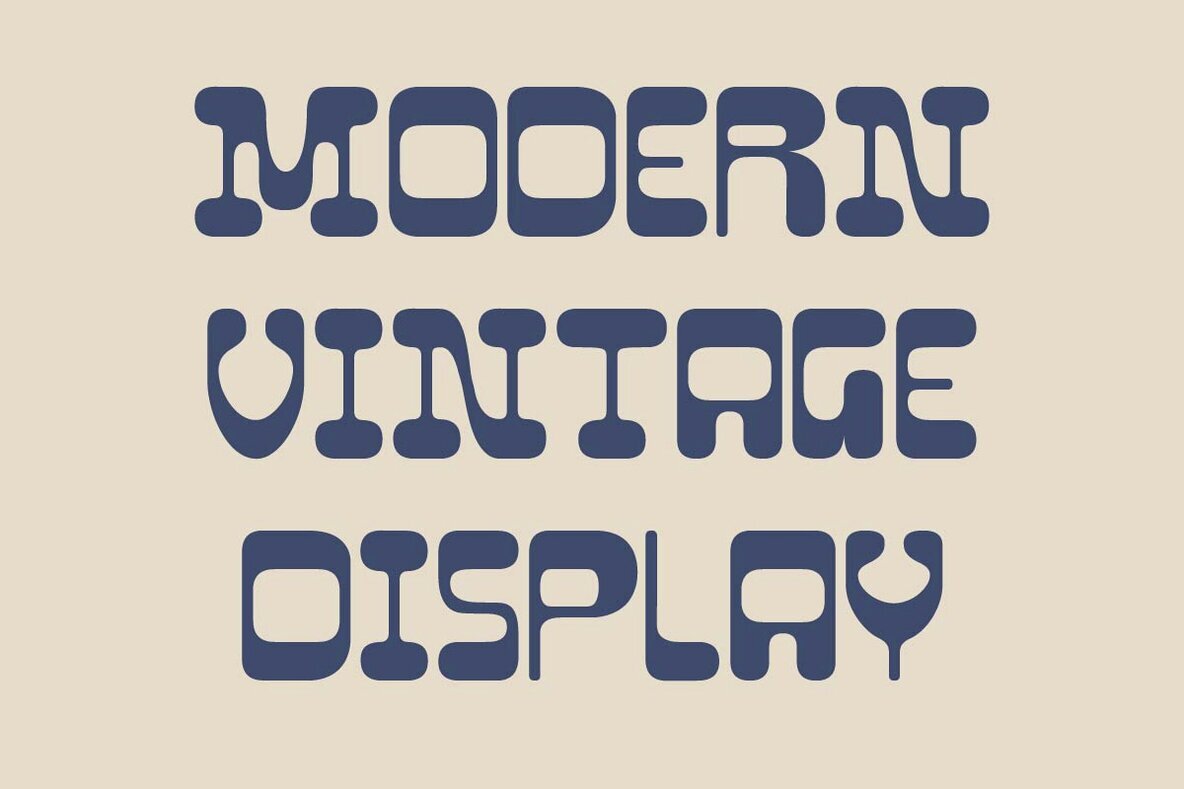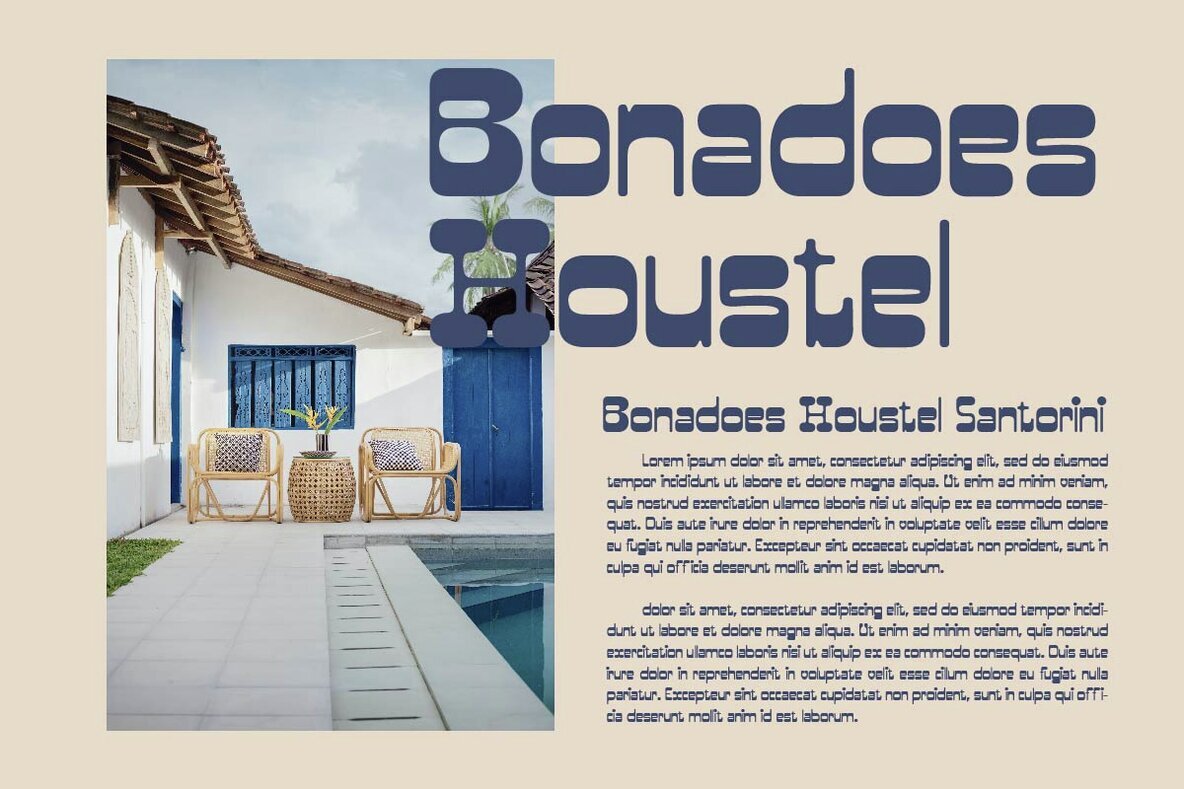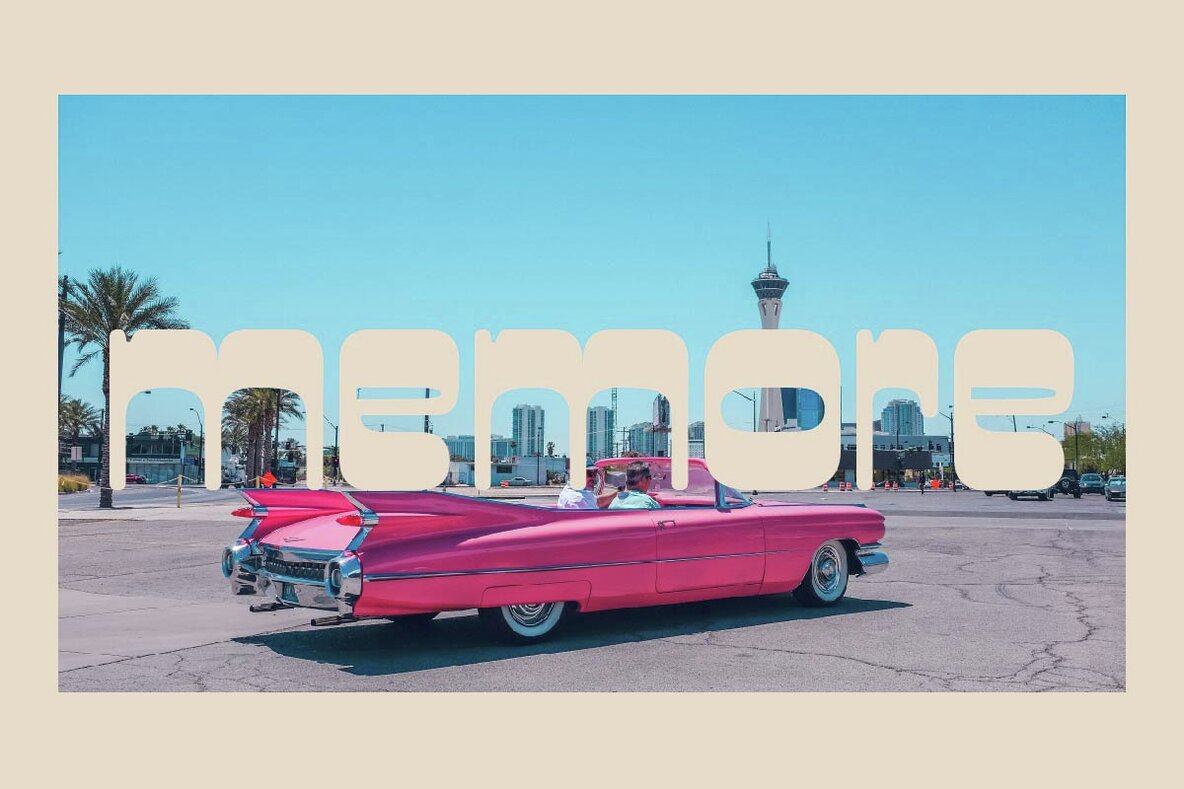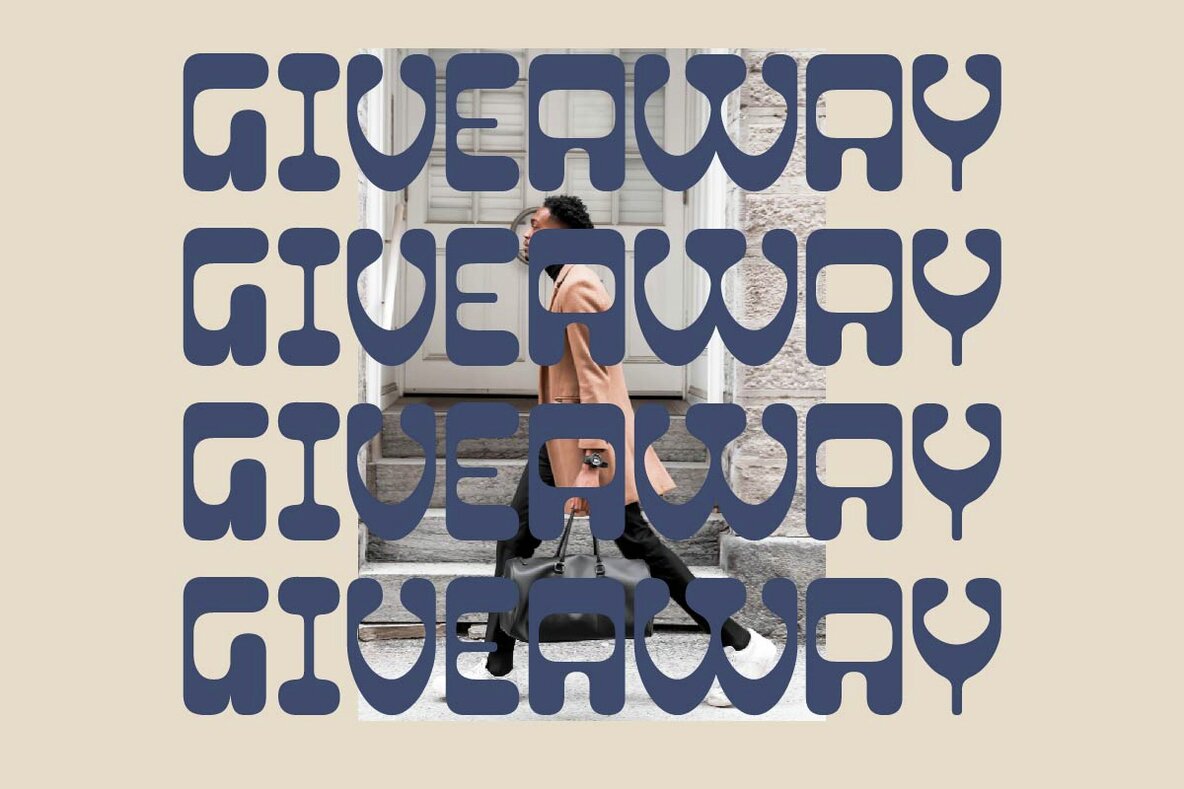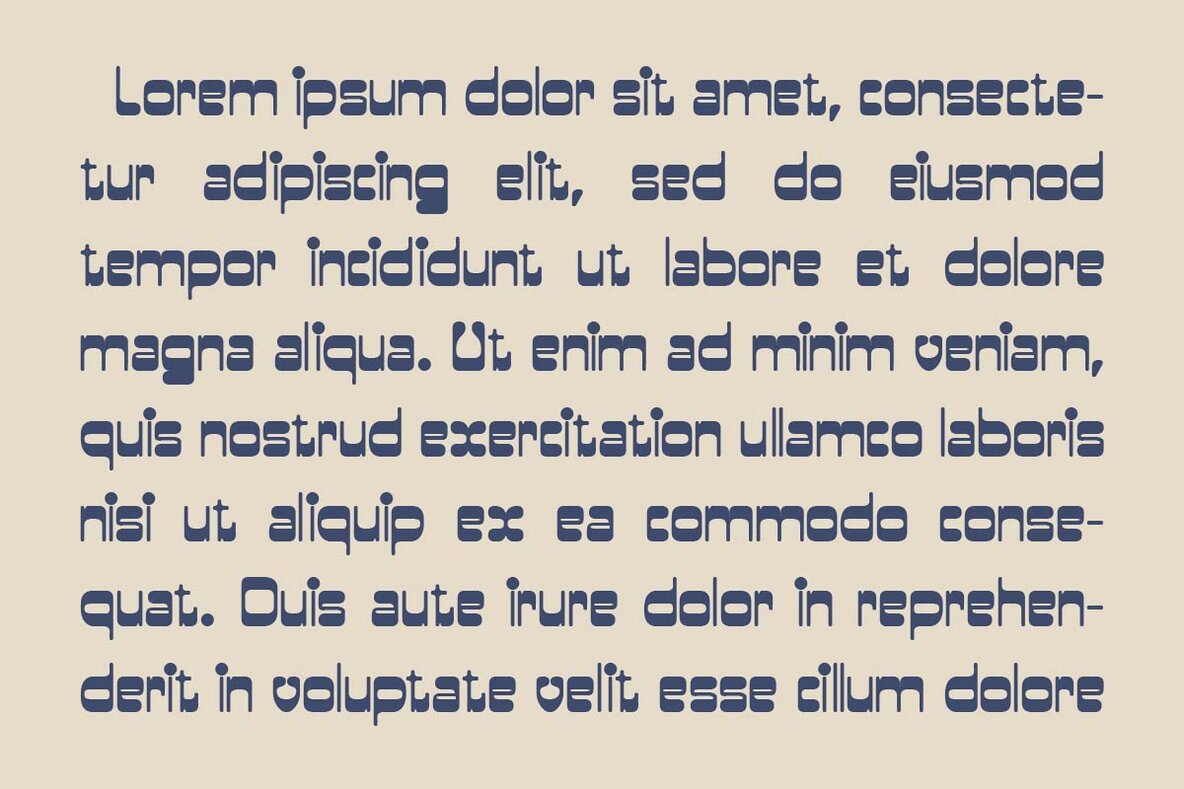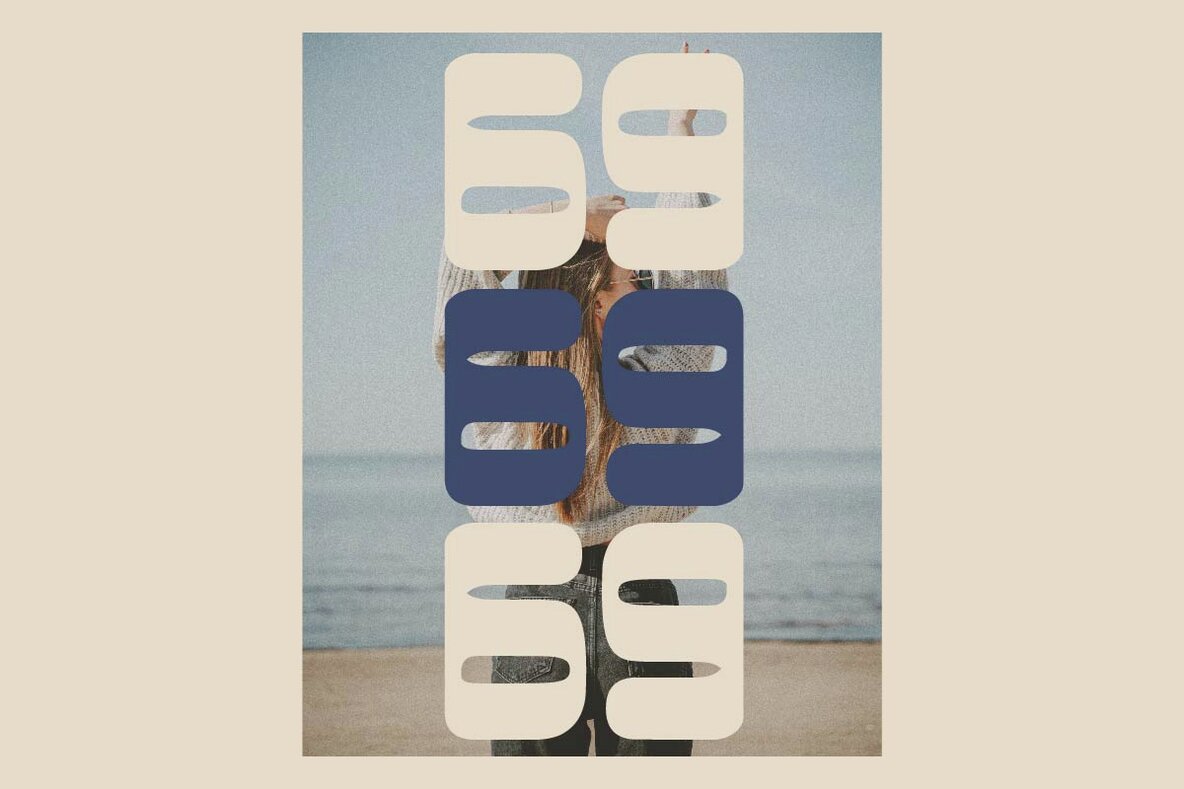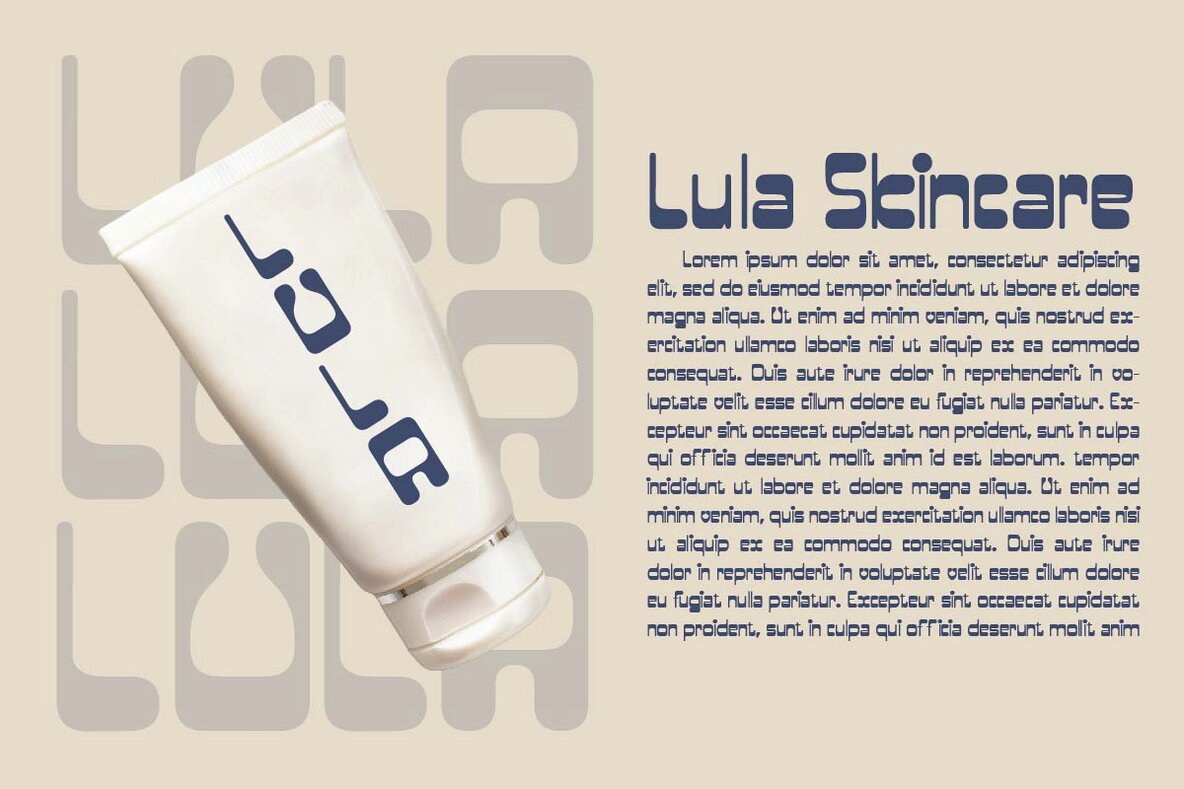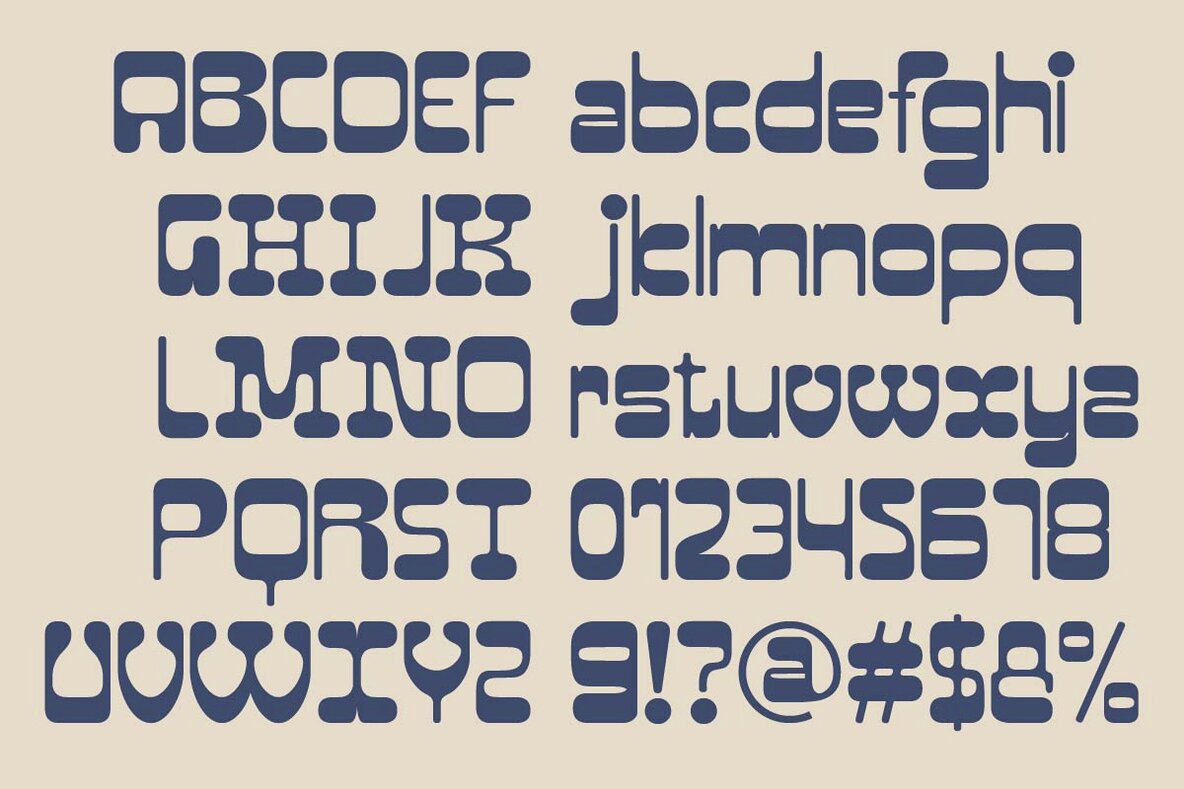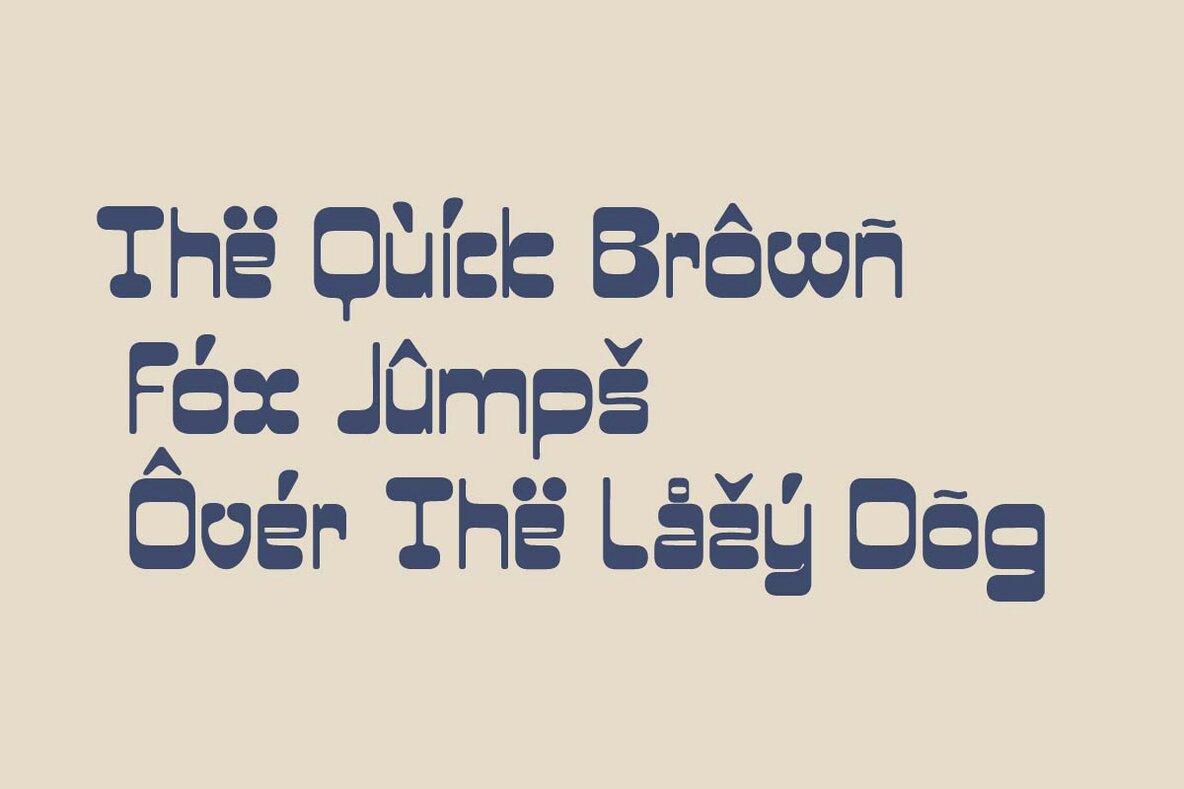
Malachai Font
Malachai Regular
Malachai is a versatile modern vintage display font featuring special glyphs, ornamental designs, and multilingual support. Its adaptability makes it ideal for both large and small applications, offering a stylish solution for editorial projects, logo design, clothing branding, product packaging, magazine headers, and more.Malachai: A Modern Vintage Display Font